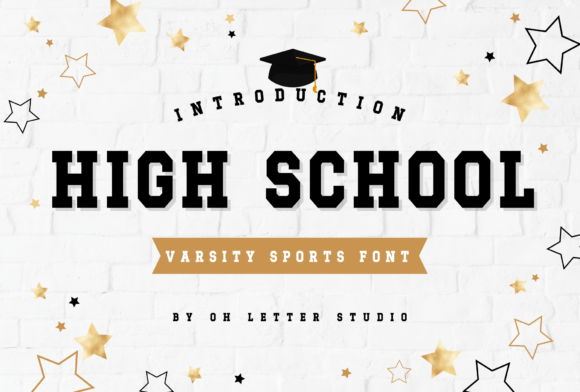
Introducing High School Font, the ultimate choice for all your sports-related design projects! Created by OH Letter Studio, this sporty display font is here to elevate your branding, merchandise, posters, and more to new heights.
With its strong and commanding look, High School Font is designed to convey power and athleticism. Its thick lines and sharp edges exude an unrivaled energy that captures the essence of sports. Whether you're creating a logo for a sports team, designing sports-themed merchandise, or crafting eye-catching posters, this font is guaranteed to make your designs stand out from the crowd.
High School Font is not just visually captivating, but it also evokes a sense of excitement and passion. Just like the adrenaline rush of a thrilling match, this font pulsates with energy and dynamism. Its bold and dynamic nature will instantly grab the attention of your audience and keep them engaged.
But that's not all – High School Font is incredibly versatile. While it excels in sports-related designs, it also lends itself beautifully to various other creative projects. Its unique style and aesthetic make it an excellent choice for book covers, magazine layouts, album artwork, and much more. Let your imagination run wild and watch as this font transforms your ideas into captivating visuals.
When it comes to typography, High School Font is a game-changer. With its captivating presence and strong visual impact, it ensures that your message is delivered loud and clear. Whether you're aiming to inspire, motivate, or simply make a statement, this font will do all the talking for you.
So why settle for ordinary fonts when you can embrace the extraordinary? High School Font is the epitome of style, power, and excitement. Let it be the driving force behind your next design venture and watch as it leaves a lasting impression on your audience.
In conclusion, High School Font is not just a font – it's a game-changer. With its sporty and commanding look, it brings your sports-related design projects to life. Its bold and dynamic nature captures the energy and excitement of sports, making it perfect for branding, merchandise, posters, and more. Let High School Font be the champion of your creative endeavors and embark on a journey of visual excellence today!